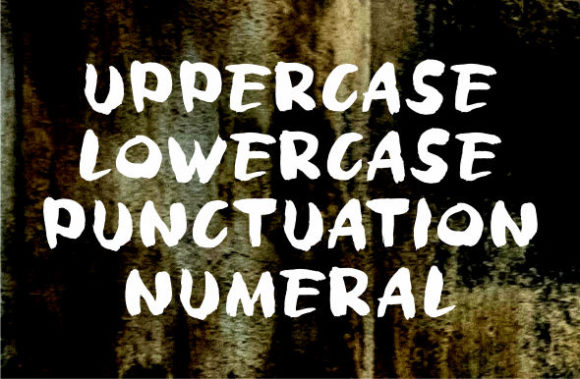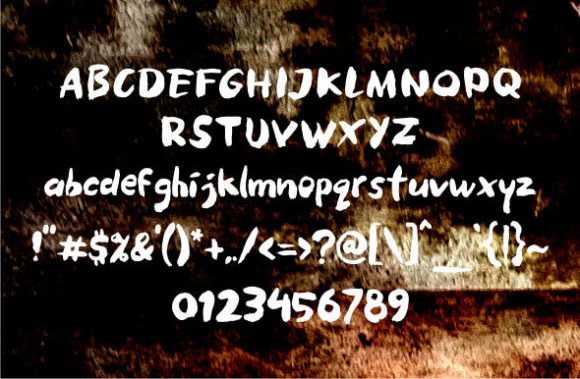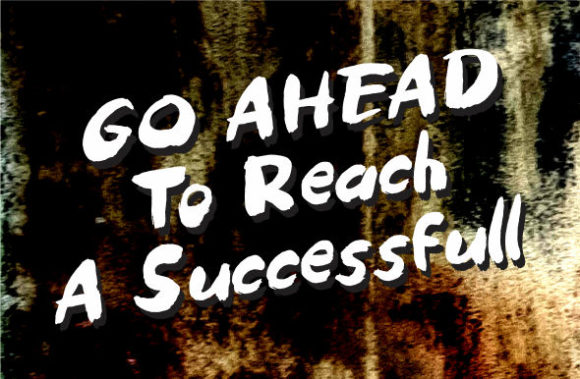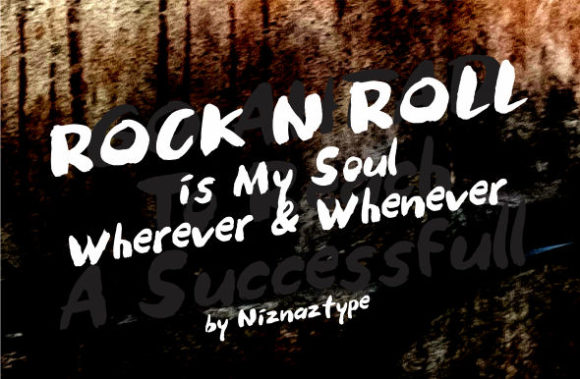
Introducing Brush Brezz Font: The Ultimate Display Font for Creative Standouts
Are you tired of using the same old fonts for your creative projects? Look no further than Brush Brezz Font, a unique and enchanting display font that embodies fun, quirkiness, and authenticity. With Brush Brezz, you can turn any creative idea into a true standout that captures attention and leaves a lasting impression.
The Characteristics of Brush Brezz Font
Brush Brezz Font is a one-of-a-kind display font that boasts a distinctive, hand-brushed look. Its irregular strokes and charming imperfections give it a delightfully quirky feel that’s perfect for designers and crafters looking to add a touch of personality to their work. Whether you’re creating a logo, poster, or social media graphic, Brush Brezz Font is sure to make your design pop.
What Makes Brush Brezz Font So Special?
So, what sets Brush Brezz Font apart from other display fonts on the market? Here are just a few of its standout features:
- Unique and Quirky: Brush Brezz Font has a refreshingly quirky feel that’s sure to capture attention and add a touch of whimsy to your designs.
- Authentic and Hand-Crafted: With its hand-brushed look and irregular strokes, Brush Brezz Font has an authentic, crafty feel that’s perfect for designers and crafters who value individuality.
- Highly Versatile: Whether you’re creating a logo, poster, or social media graphic, Brush Brezz Font is highly versatile and can be used in a wide range of creative projects.
- Easily Readable: Despite its quirky look, Brush Brezz Font is surprisingly easy to read, making it perfect for use in both digital and print designs.
Brush Brezz Font is a dream come true for designers and crafters who value creativity and individuality. Whether you’re a professional designer or a DIY crafter, this enchanting display font is sure to inspire your next creative project. Here are just a few ways you can use Brush Brezz Font:
- Logos and Branding: Use Brush Brezz Font to create a unique and memorable logo that captures the personality of your brand.
- Posters and Flyers: Add a touch of whimsy to your posters and flyers with Brush Brezz Font, perfect for promoting events, products, or services.
- Social Media Graphics: Use Brush Brezz Font to create eye-catching social media graphics that stand out in crowded feeds.
- Handmade Crafts: Add a personal touch to your handmade crafts, such as cards, gift tags, and scrapbook pages, with Brush Brezz Font.
Tips for Using Brush Brezz Font
To get the most out of Brush Brezz Font, here are a few tips to keep in mind:
- Use it Sparingly: Brush Brezz Font is a bold and attention-grabbing font, so use it sparingly to avoid overwhelming your design.
- Pair it with Other Fonts: Experiment with pairing Brush Brezz Font with other fonts to create a unique and visually appealing combination.
- Experiment with Colors: Brush Brezz Font looks great in a wide range of colors, so don’t be afraid to experiment and find the perfect hue for your design.
| Font Name | Brush Brezz Font |
| Author | Niznaz Graphic Studio |
In conclusion, Brush Brezz Font is a one-of-a-kind display font that embodies fun, quirkiness, and authenticity. With its unique and hand-brushed look, this enchanting font is perfect for designers and crafters who value individuality and creativity. Whether you’re creating a logo, poster, or social media graphic, Brush Brezz Font is sure to turn your creative idea into a true standout.